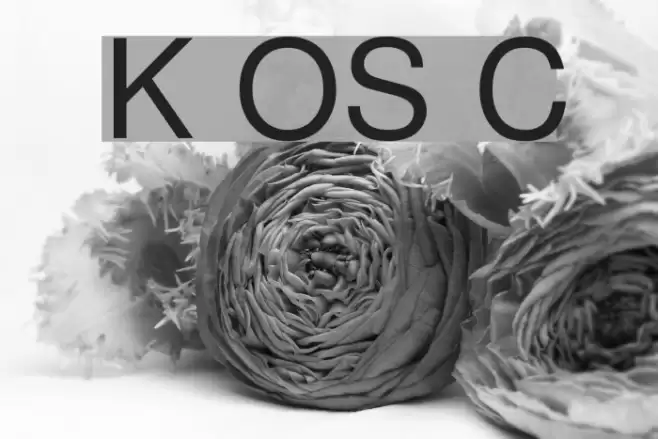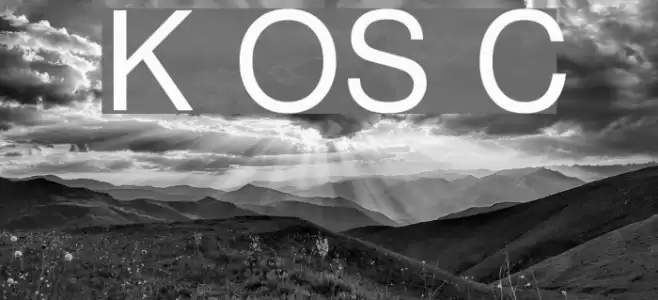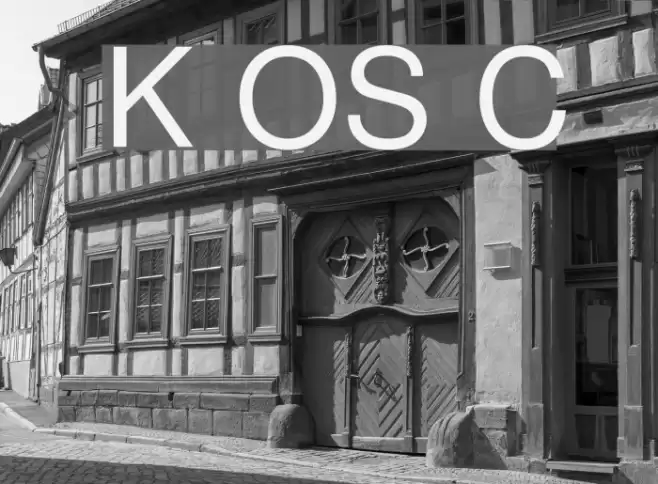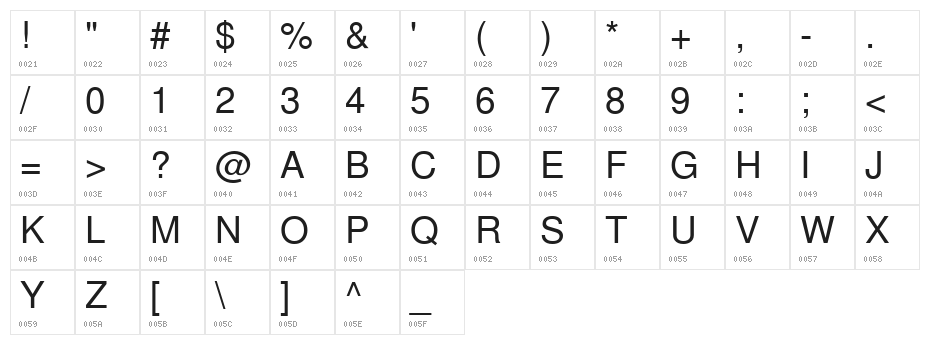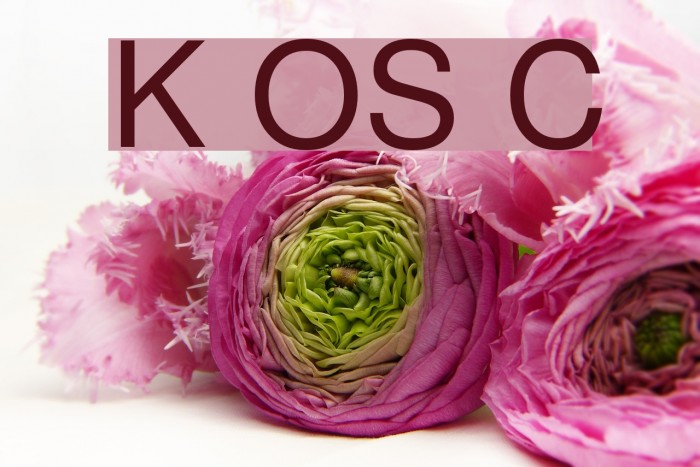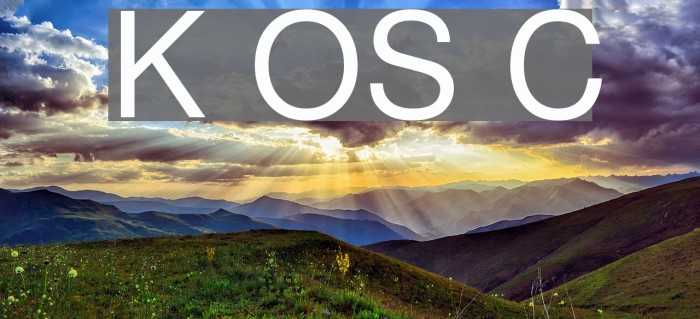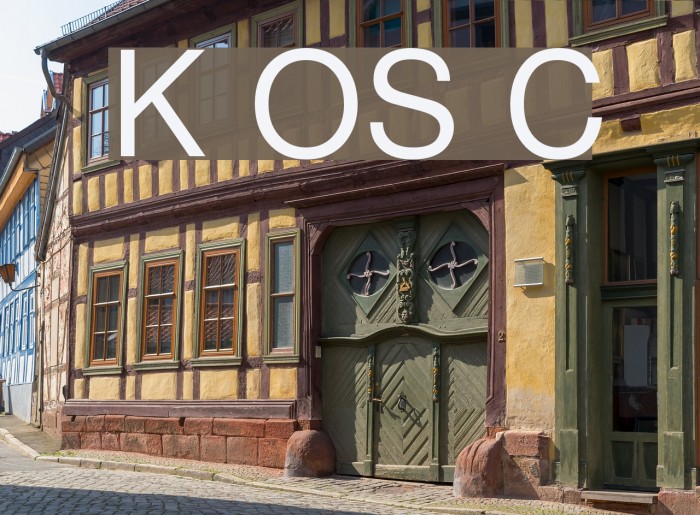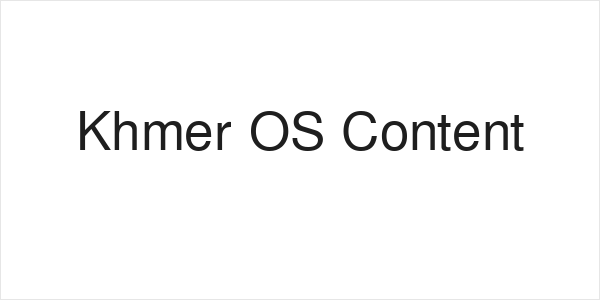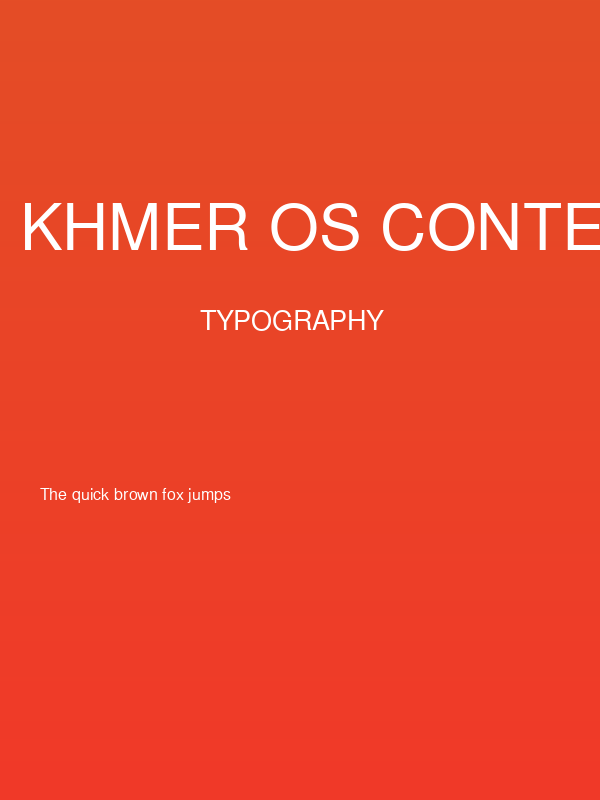
Khmer OS Content Font
Khmer OS Content Description
This font features a clean and modern sans-serif design, characterized by its simplicity and readability. The letters are evenly spaced with a consistent stroke width, providing a balanced and harmonious appearance. The uppercase and lowercase letters are well-proportioned, making it suitable for a variety of text applications. The numerals are clear and distinct, ensuring easy readability in numerical data. Special characters are included, maintaining the font's cohesive style. This font's straightforward design makes it versatile for both digital and print media.
A clean, modern sans-serif font with balanced proportions and clear readability from Asian fonts.
- Proposed Projects: Ideal for web design, corporate branding, user interfaces, and educational materials.
- Use Case: Body text, User interfaces, Educational materials